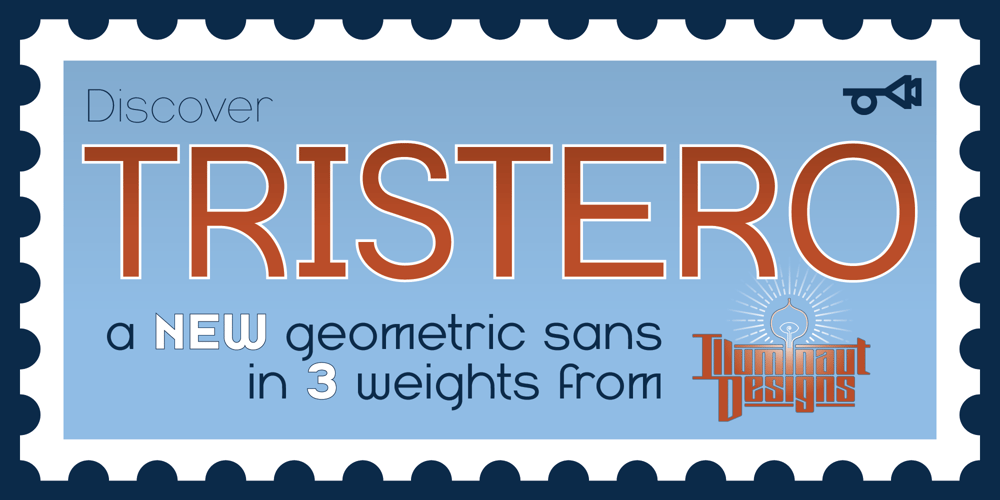
Tristero Font Family was designed by Jesse Smith and published by Illuminaut Designs. Tristero contains 3 styles and family package options. “Behind the hieroglyphic streets there would either be a transcendent meaning, or only the earth…. Another mode of meaning behind the obvious, or none.”Tristero is an expansive geometric sans with letter forms that are both classic and quirky. There are over 550 characters in 3 weights. A versatile typeface with a friendly character.